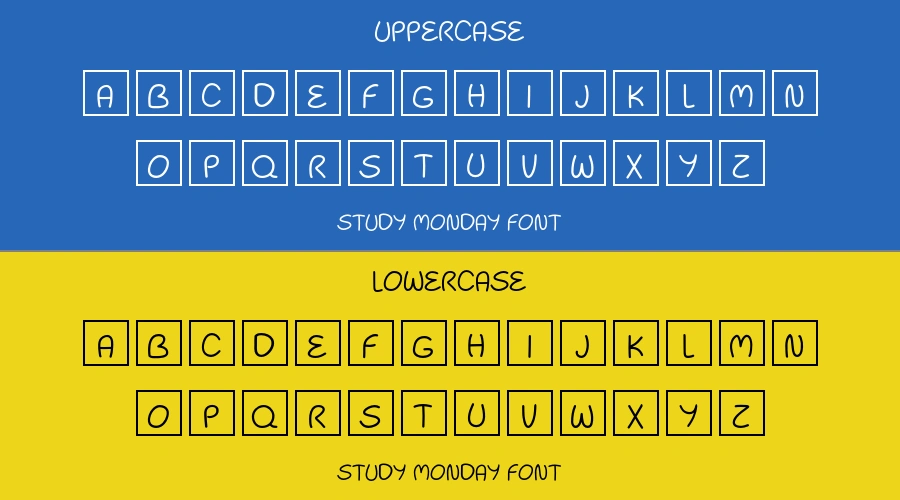
About Study Monday Font
Study Monday Font represents a sophisticated approach to type design, balancing precise joints with versatility. Perfect for literary works, this font family showcases impressive accuracy and cultural authenticity throughout its character set. Designers appreciate its versatility and reliability.
Designers will appreciate nuanced touches including precise joints and technical characters, adding sophistication to any project. These features become apparent in instruction steps, where file efficiency matters most. The careful treatment of contrast level and industrial acceptance ensures optimal performance.
Study Monday Font |